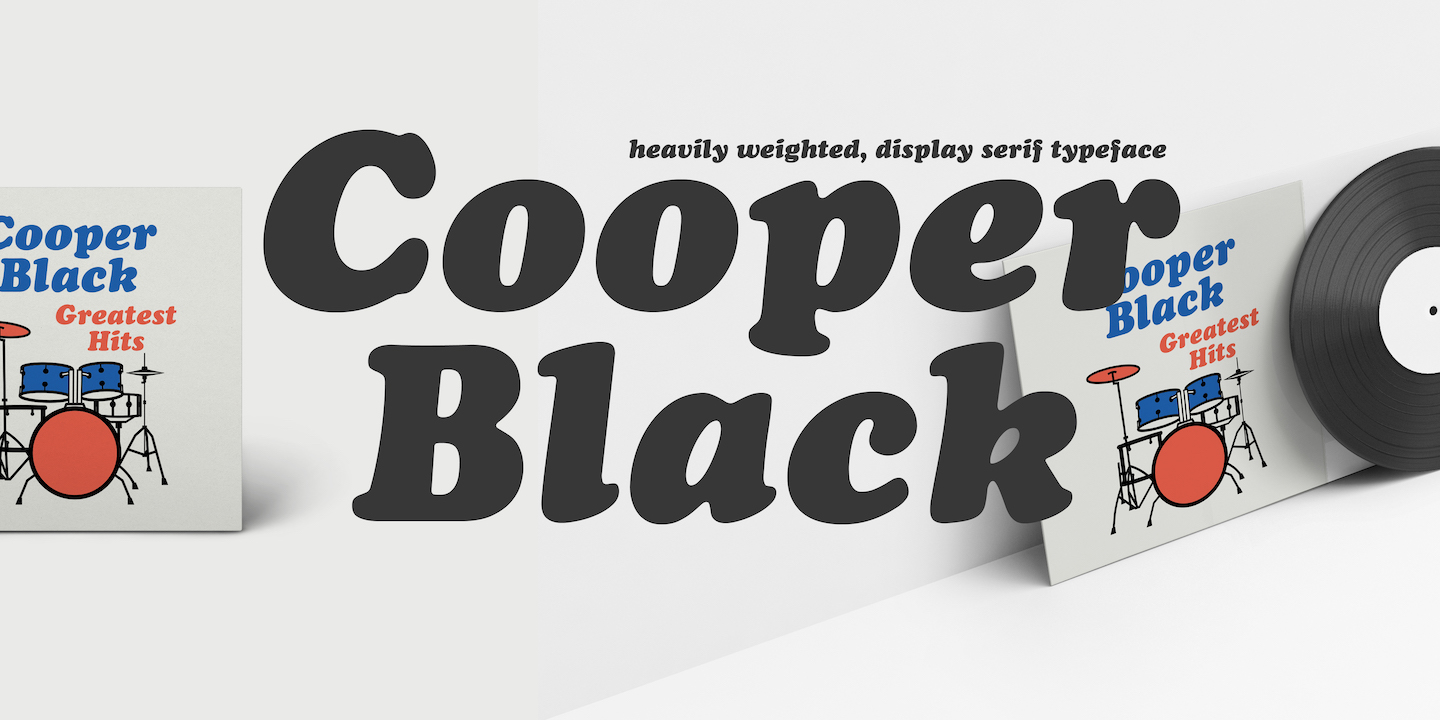
Cooper Black Font Free Download delivers a bold, iconic typeface that embodies retro charm and advertising power with unmistakable visual impact. However, for commercial use, you must purchase this font. You can download it for free for testing purposes only.
Cooper Black Font excels in vintage design applications including retro advertising campaigns, classic diner signage, nostalgic product packaging, vintage poster designs, old-school barbershop graphics, traditional candy branding, classic Americana materials, heritage restaurant menus, throwback music album covers, and nostalgic event promotions. This commanding typeface brings authentic 1920s character to contemporary design projects.
What makes Cooper Black Font truly exciting is its perfect embodiment of American advertising golden age with ultra-bold letterforms that demand immediate attention. The font features distinctively rounded characters with heavy weight and friendly curves that create warmth despite their commanding presence. Its nostalgic personality and advertising heritage make it ideal for brands seeking to evoke feelings of comfort, tradition, and authentic American craftsmanship that resonates with audiences across generations.
The Cooper Black Font family typically includes the iconic Black weight with potential variations in spacing and alternate characters that maintain its distinctive advertising character. These classic options provide designers with authentic period styling while ensuring the font's legendary impact and recognizable personality remain intact across various applications and media formats.
Whether you're developing retro branding, creating vintage-inspired campaigns, or designing nostalgic marketing materials, Cooper Black Font Free Download provides the advertising authority and vintage charm that classic American projects require. Its exceptional recognition and timeless appeal make it invaluable for designers seeking to create memorable, heritage-inspired designs that celebrate American advertising history, craft tradition, and the enduring power of bold, friendly typography that connects with audiences through shared cultural nostalgia.